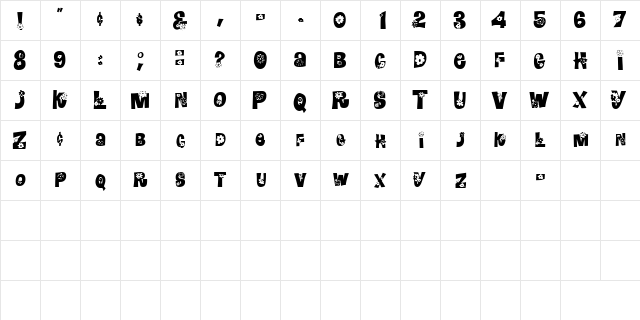
FlowerChildSCapsSSK Regular
Design Context for FlowerChildSCapsSSK Typeface
FlowerChildSCapsSSK has an approachable, lighthearted character — its loose, expressive forms are well-suited to children's content, casual branding, and fun-first design.
Font Pairing: Pairs well with a rounded or humanist sans for body copy, maintaining the friendly tone without relying on FlowerChildSCapsSSK to carry extended reading.
Pro Tip: Use FlowerChildSCapsSSK at larger display sizes where its expressive character can land. Pair with a clean, simple sans for body copy to maintain readability.